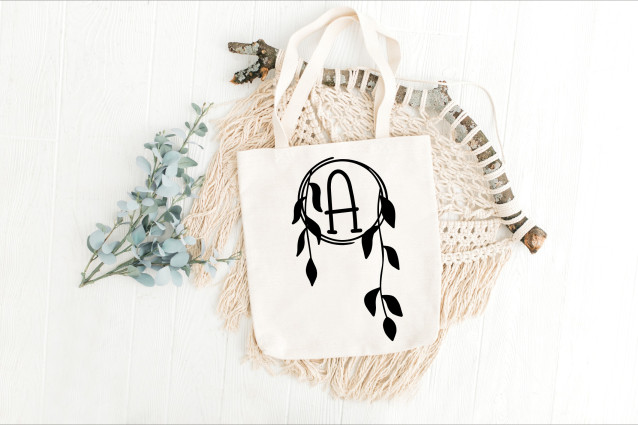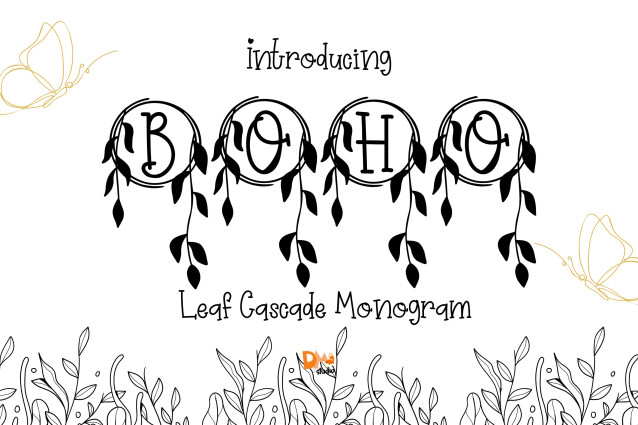
Leaf Cascade Monogram Font
Leaf Cascade Monogram Font is a sophisticated serif monogram font featuring elegant uppercase letters adorned with gracefully falling leaf arrangements. Designed to evoke the beauty of nature in motion, this font brings a serene, botanical elegance to personalized designs, wedding stationery, and seasonal branding.